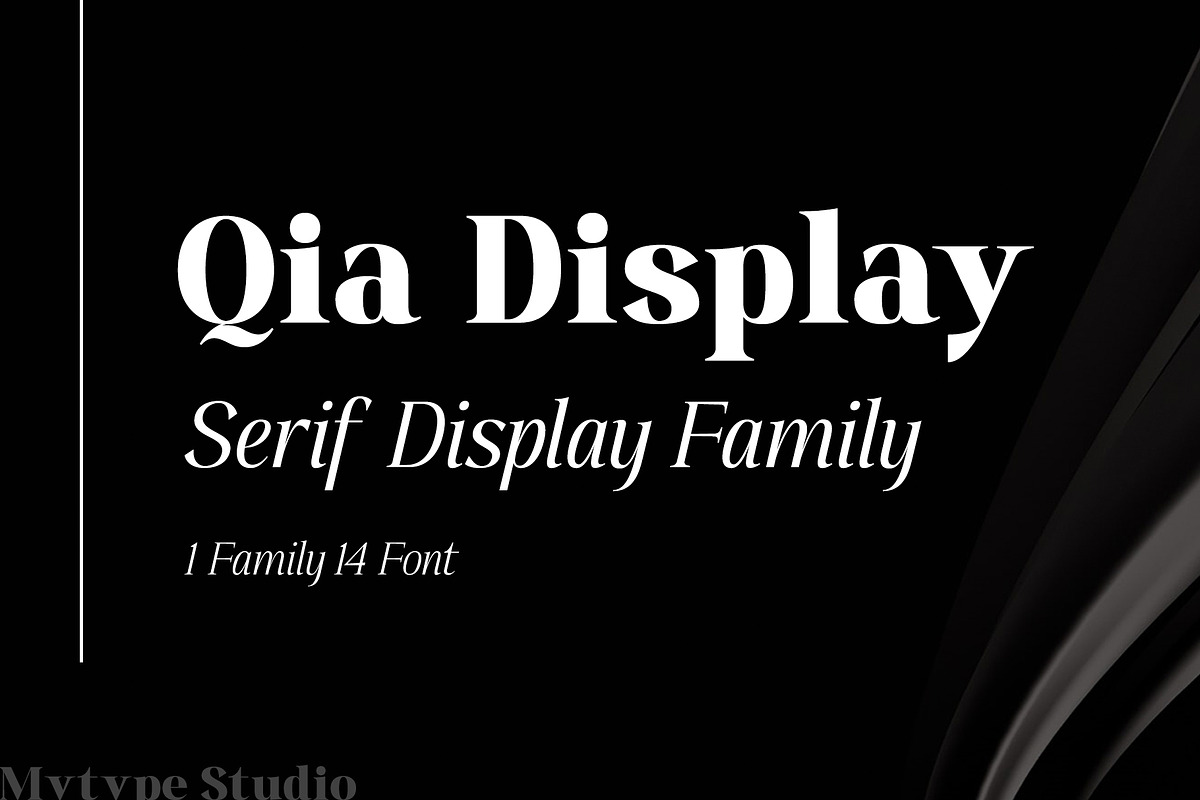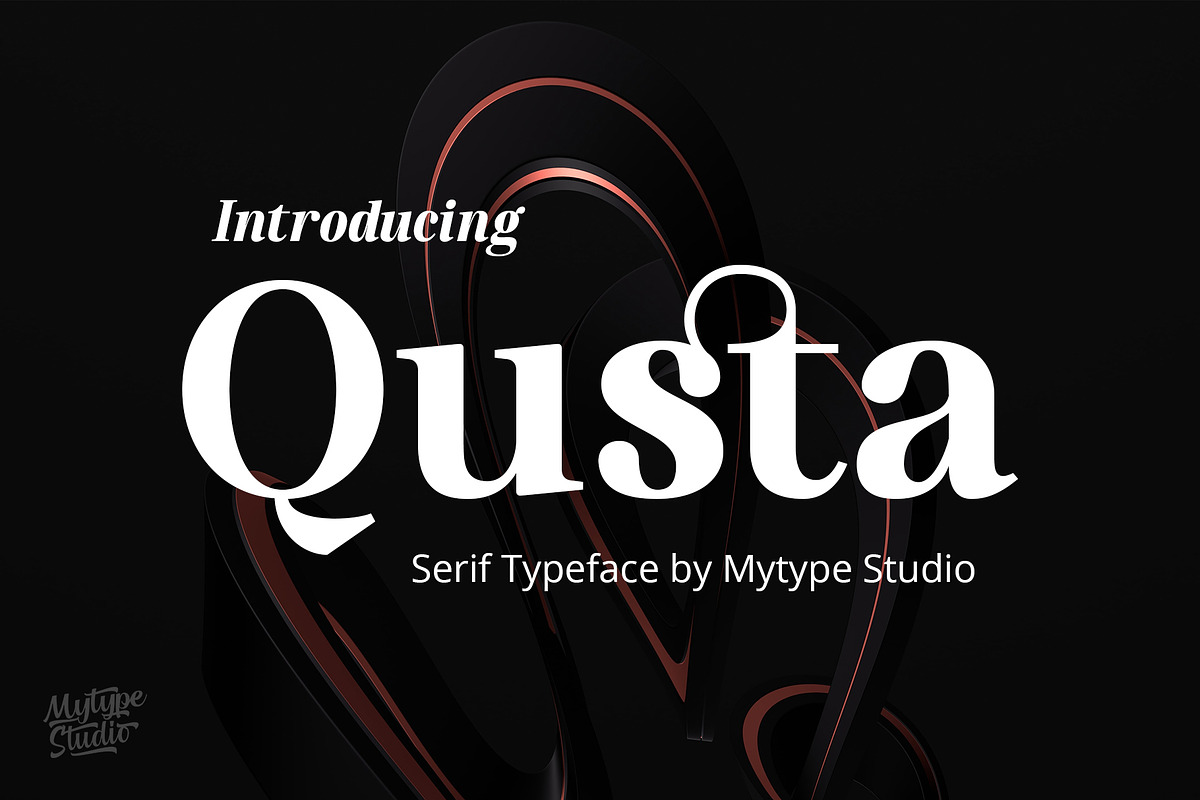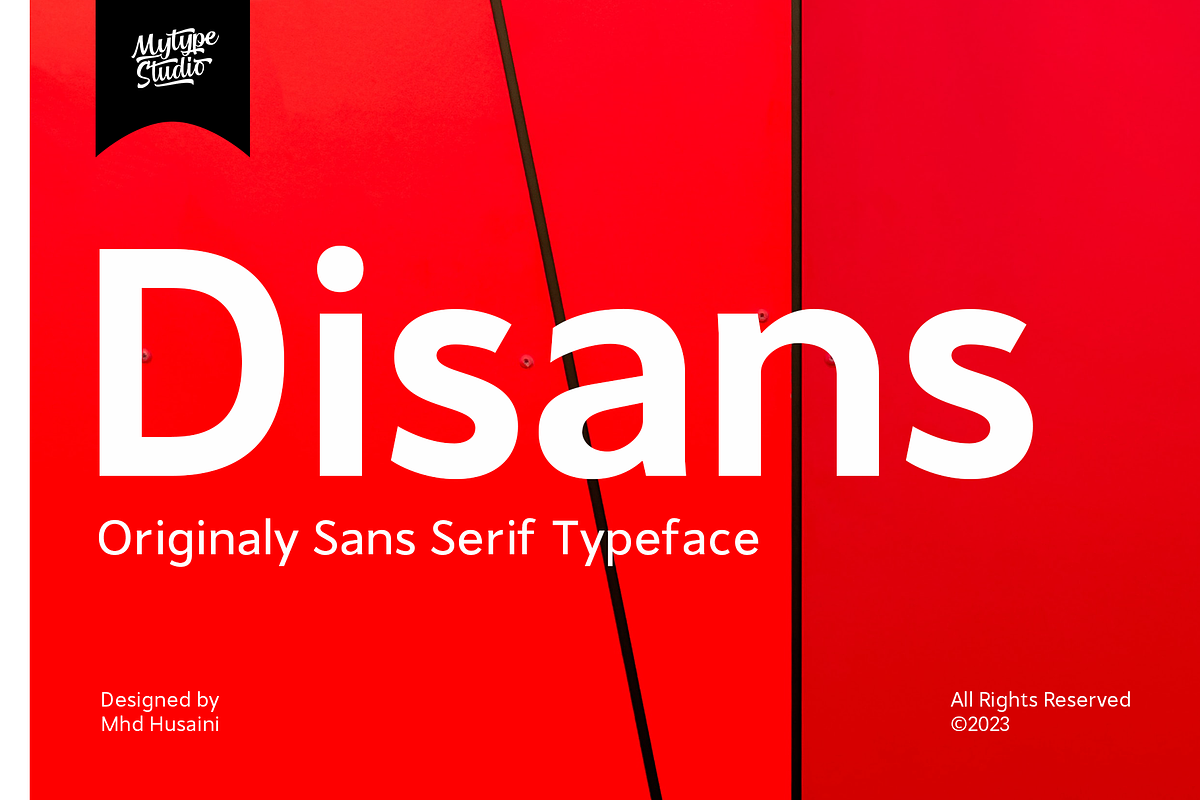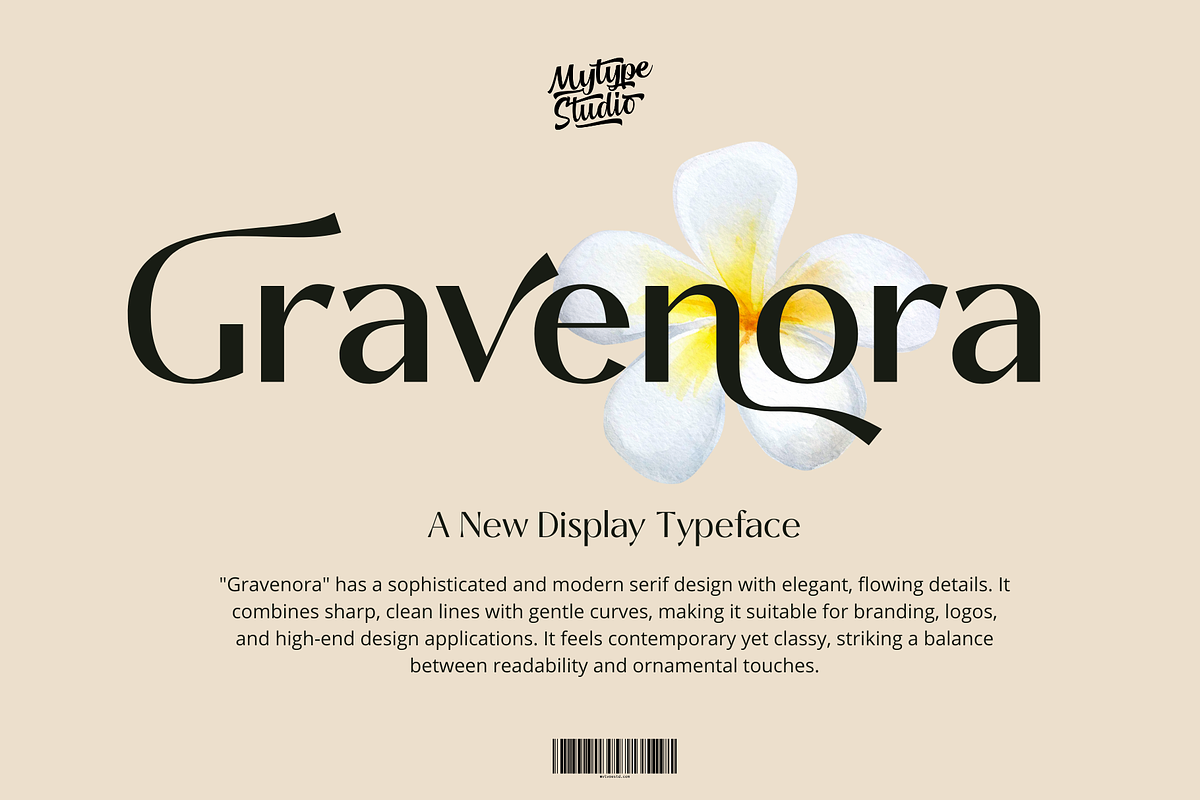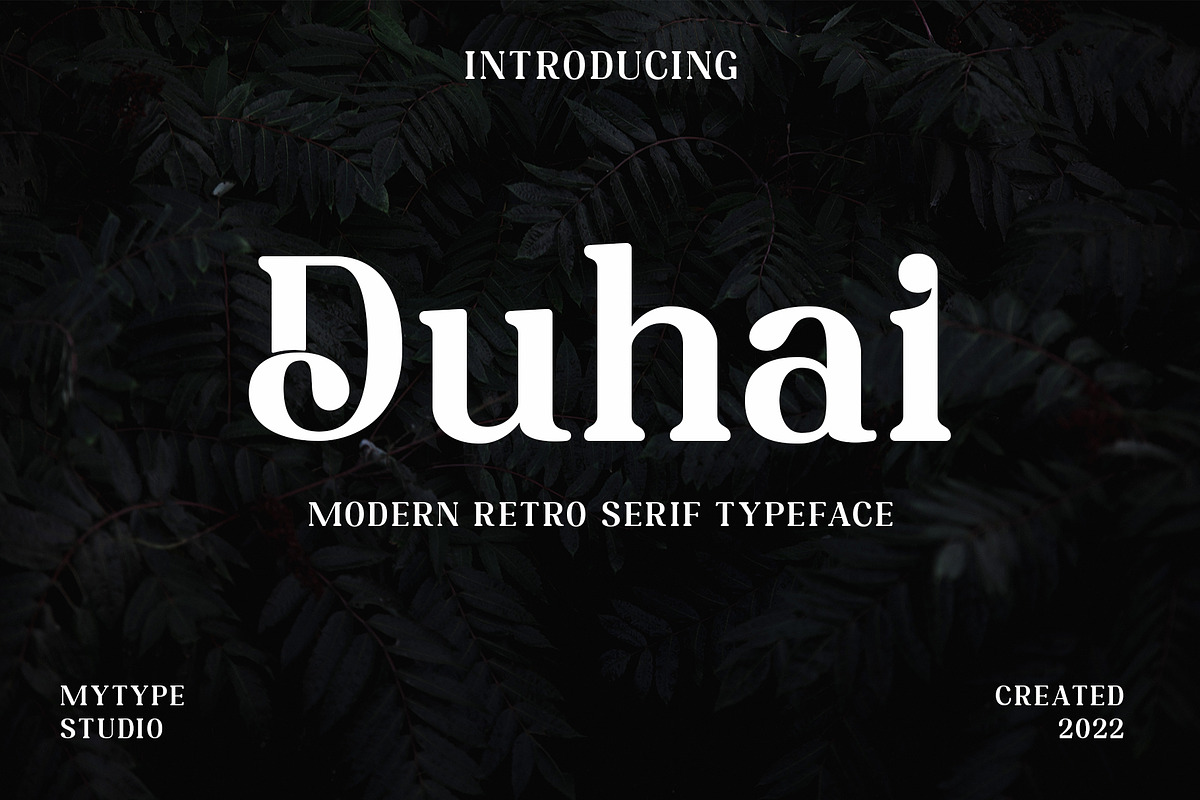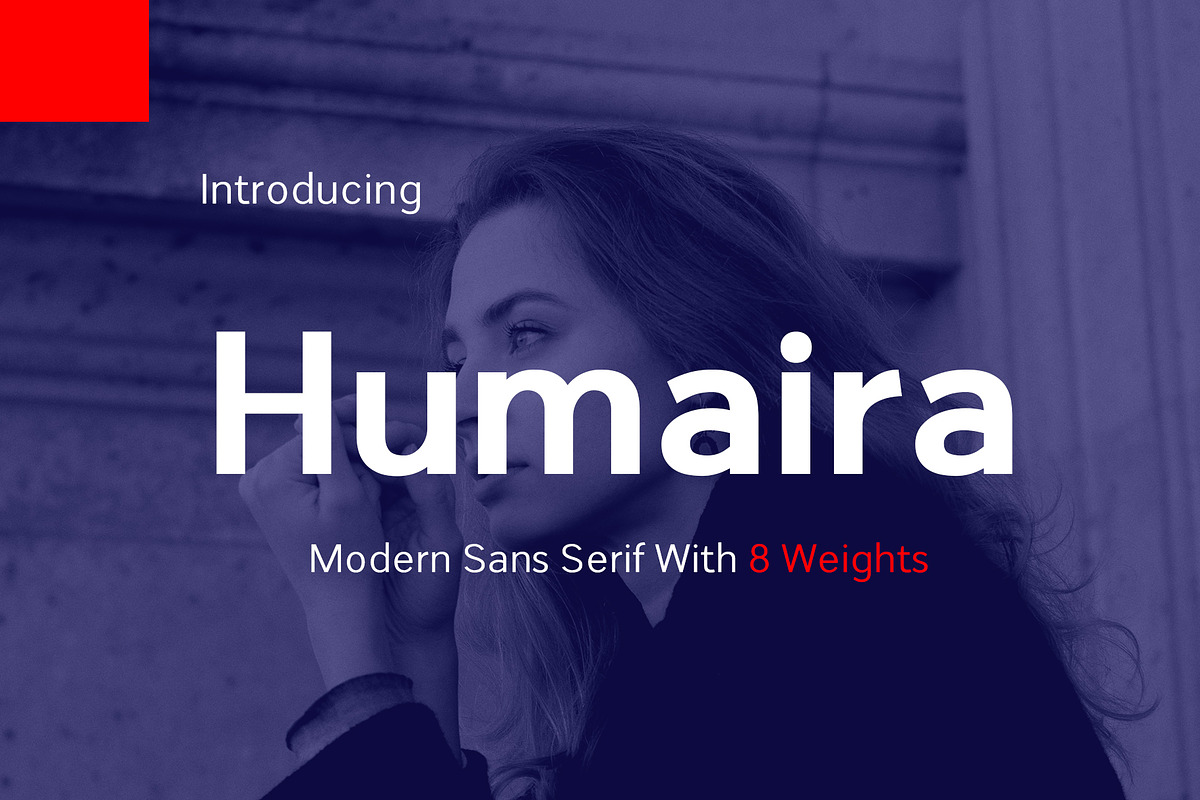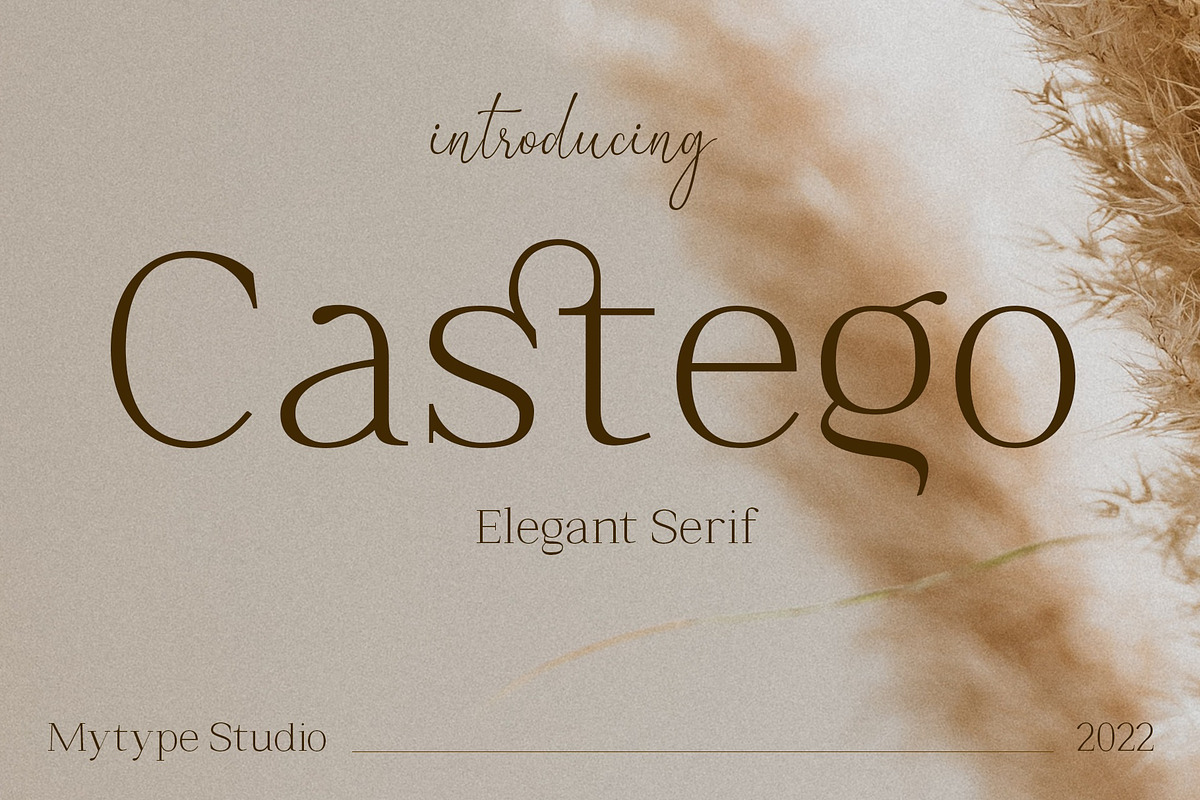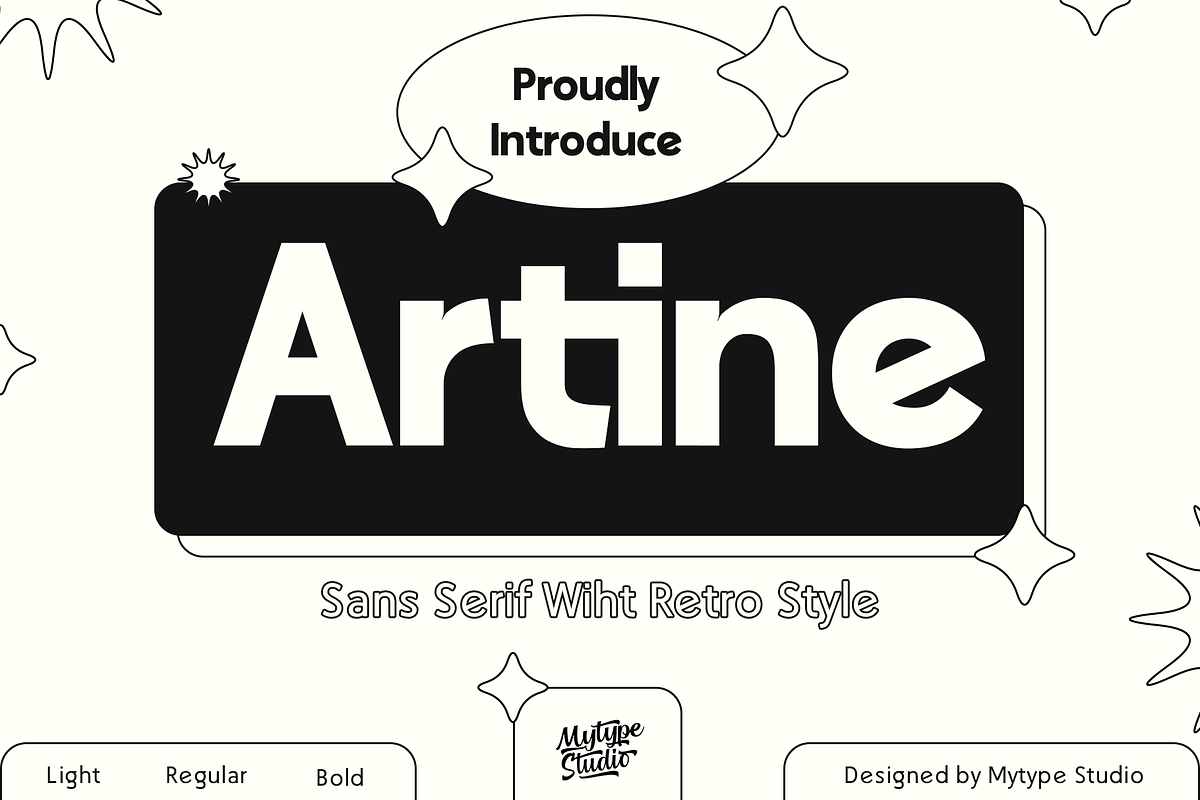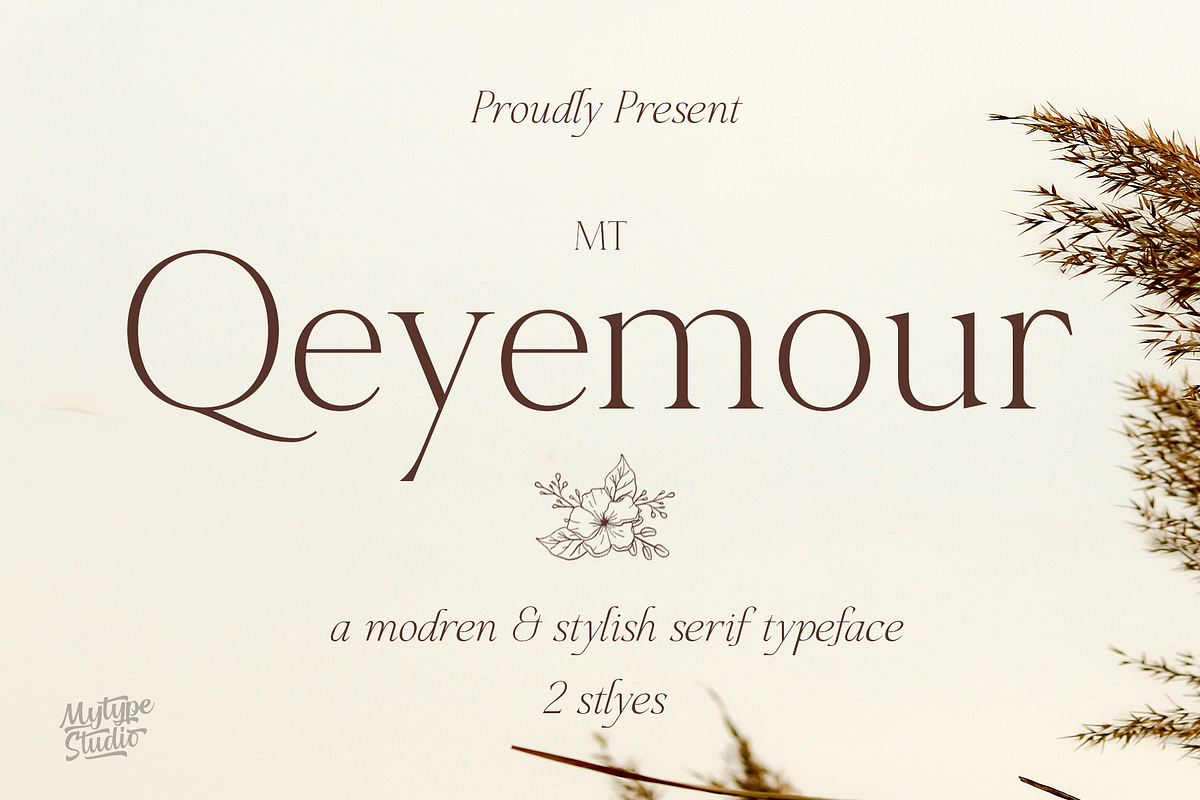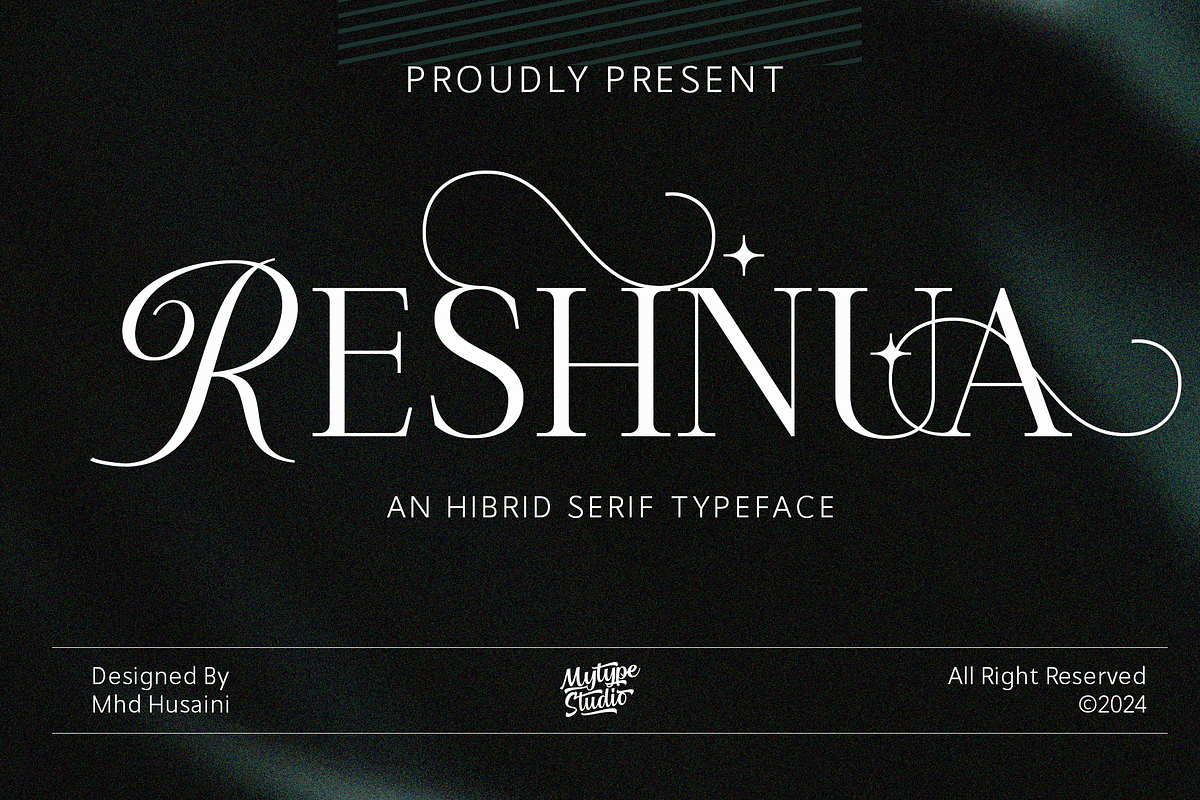
Serif & Sans Serif Font Bundle
Elevate your design projects with this exclusive Serif & Sans Serif Font Bundle, carefully curated by Mytype Studio. This collection offers an impressive variety of premium fonts – from elegant serifs to clean sans serifs – perfect for branding, editorial designs, packaging, social media, and more.
- Diverse Styles: Includes 21 font families with over 70 versatile styles, giving you endless possibilities for your creative needs.